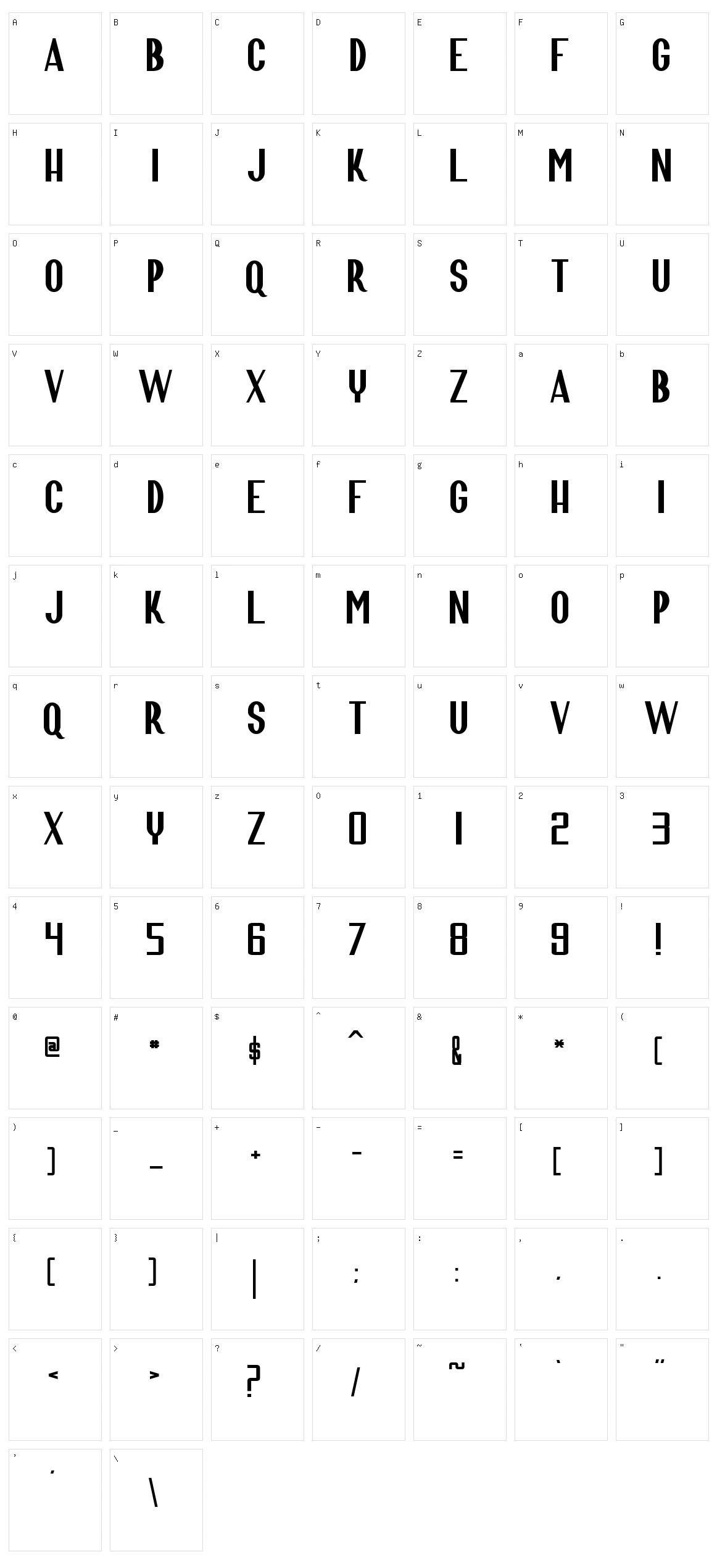
The free font Scara Conquers the Universe is carefully designed by Hans De Bisschop, showcasing a thoughtful balance of creativity and usability and falls under the Retro font style. When you download the ZIP file, it contains only 9.6 KB of font files, making it lightweight and quick to download. Please review the license details below to understand permitted usage and distribution rights. If license information is not available, we recommend using this font for personal projects only or contacting the author directly for commercial usage permissions.